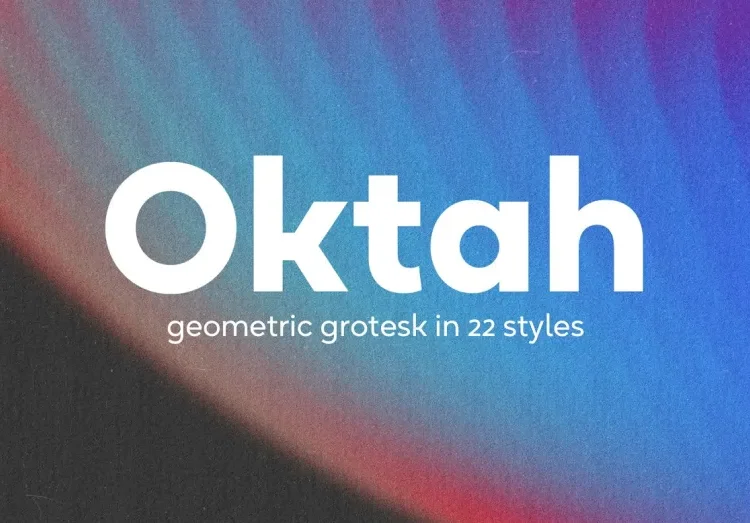
Oktah Font
Oktah Font is a versatile geometric Grotesk sans serif font family featuring 22 styles—11 uprights and 11 italics. Designed with beautiful geometric curves, bold strokes, and large apertures, Oktah ensures high readability and aesthetic appeal, making it ideal for a wide range of design applications.
Each letterform in Oktah balances circular shapes with optical adjustments for improved legibility. It also offers an array of OpenType features, including ligatures, case-sensitive punctuation, fractions, subscript and superscript figures, and stylistic alternates. These features provide unparalleled flexibility and customization for diverse design projects.
Fully compatible with major European languages, including Vietnamese, Oktah caters to multilingual needs with ease. Whether you’re designing for print, digital, or branding, Oktah is a complete font solution that combines functionality with modern elegance.